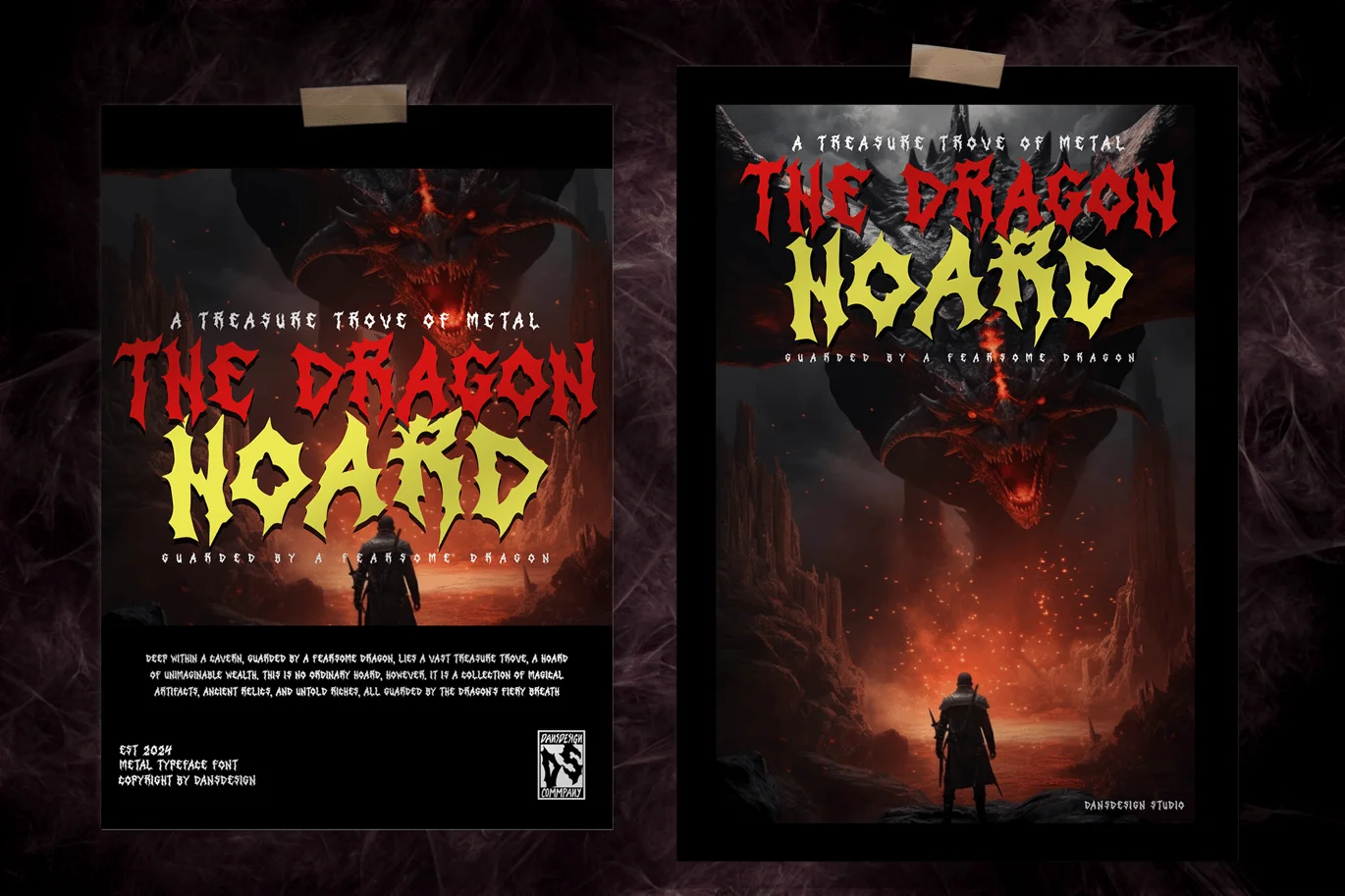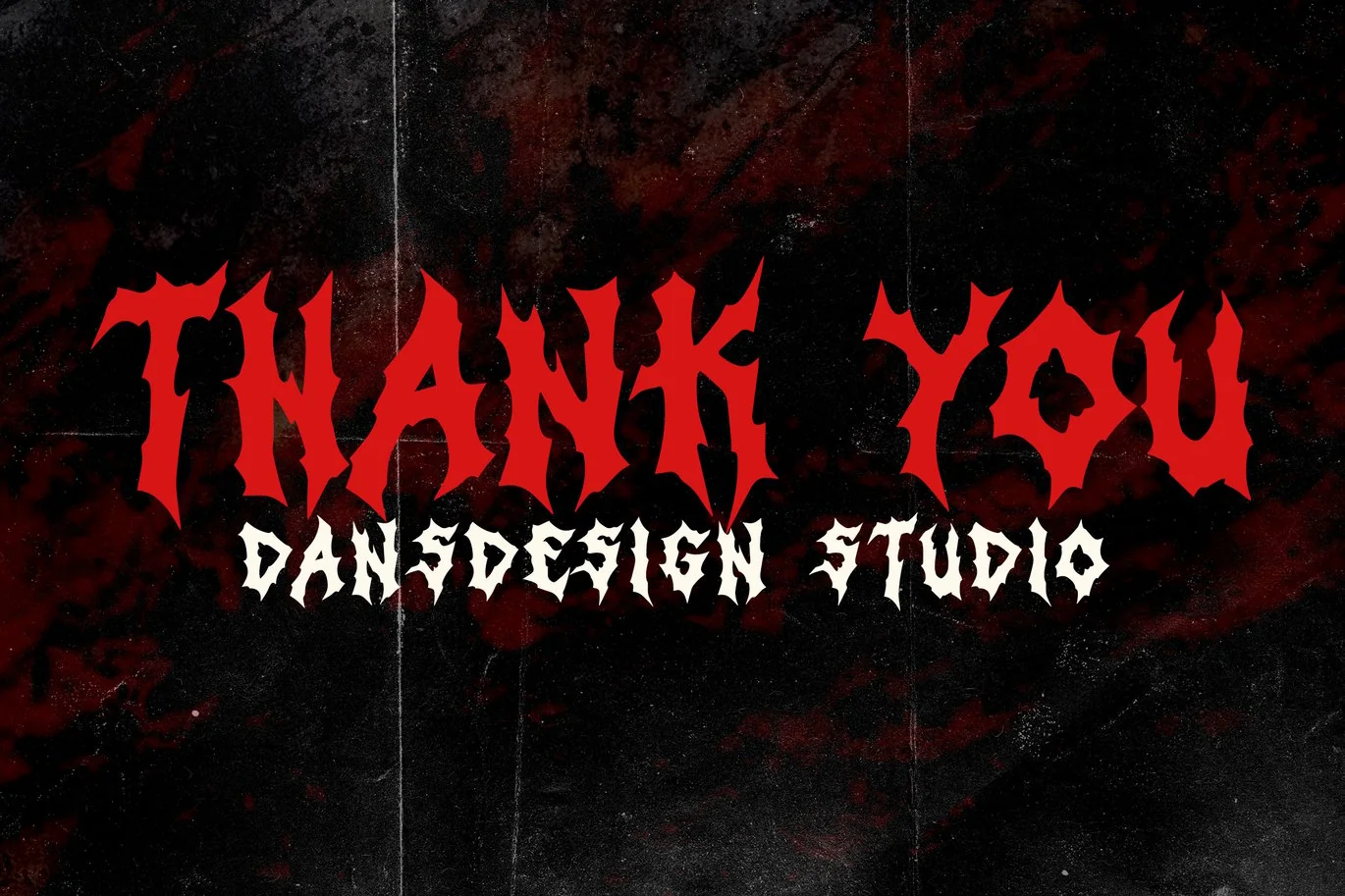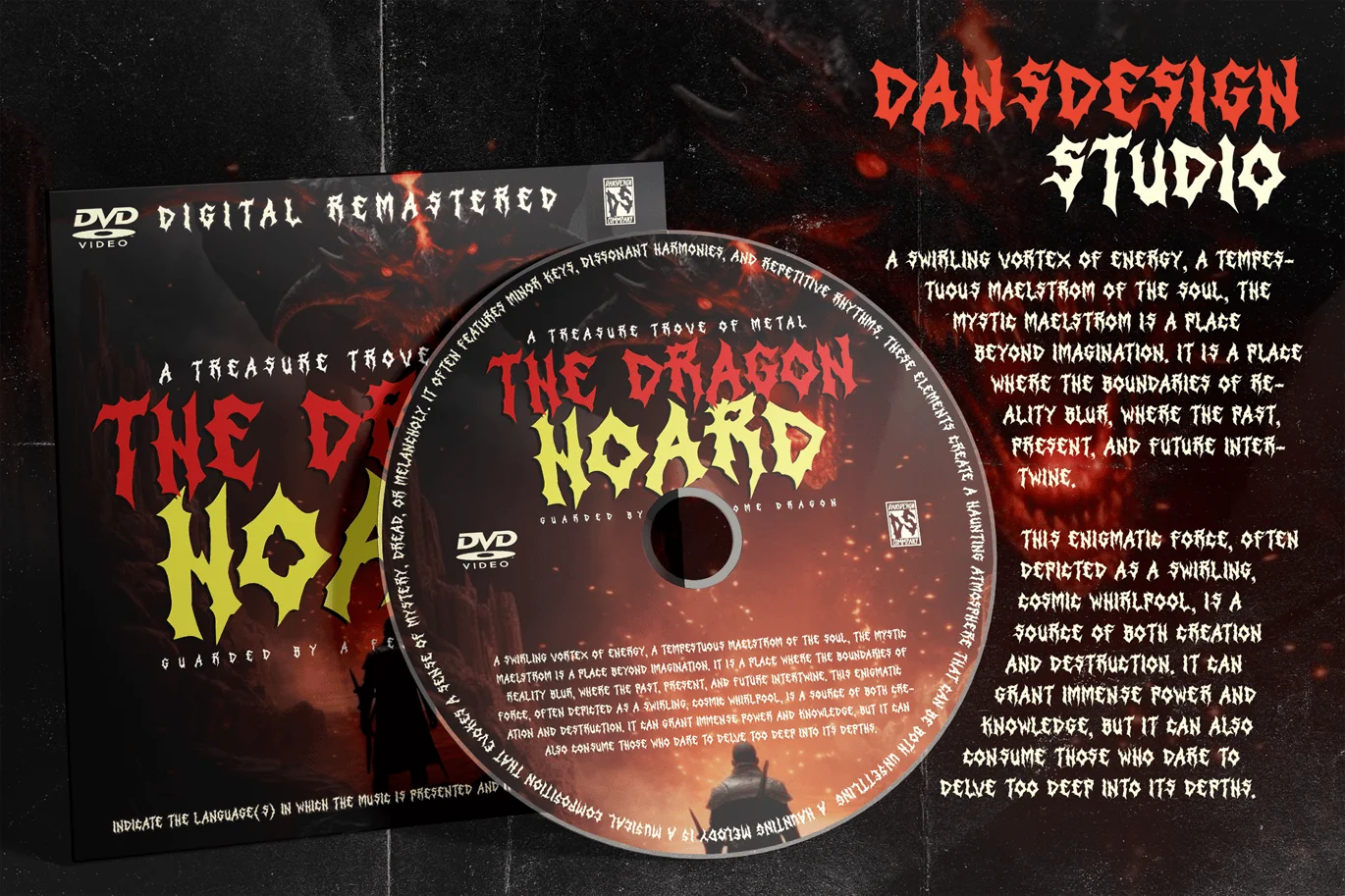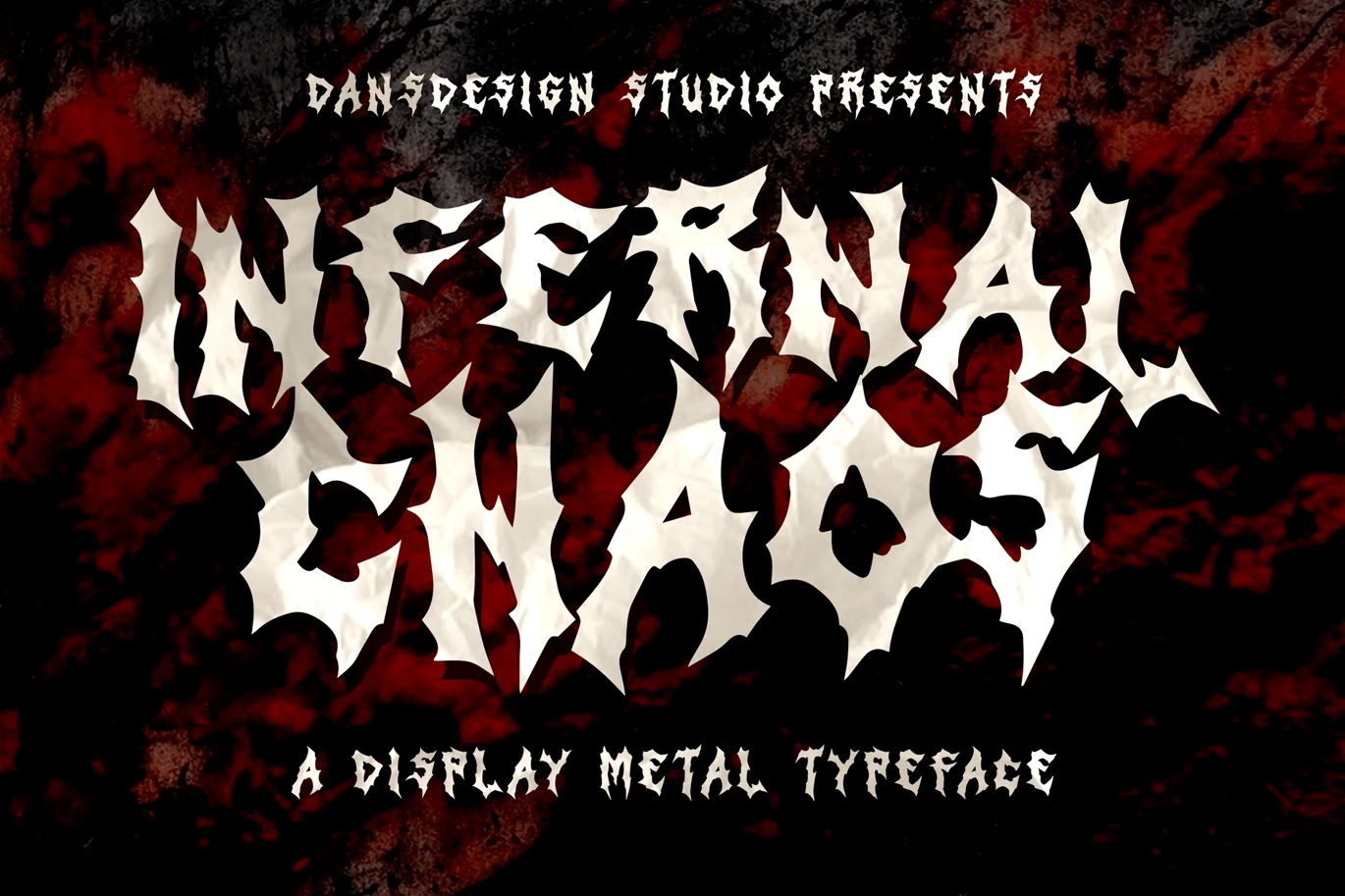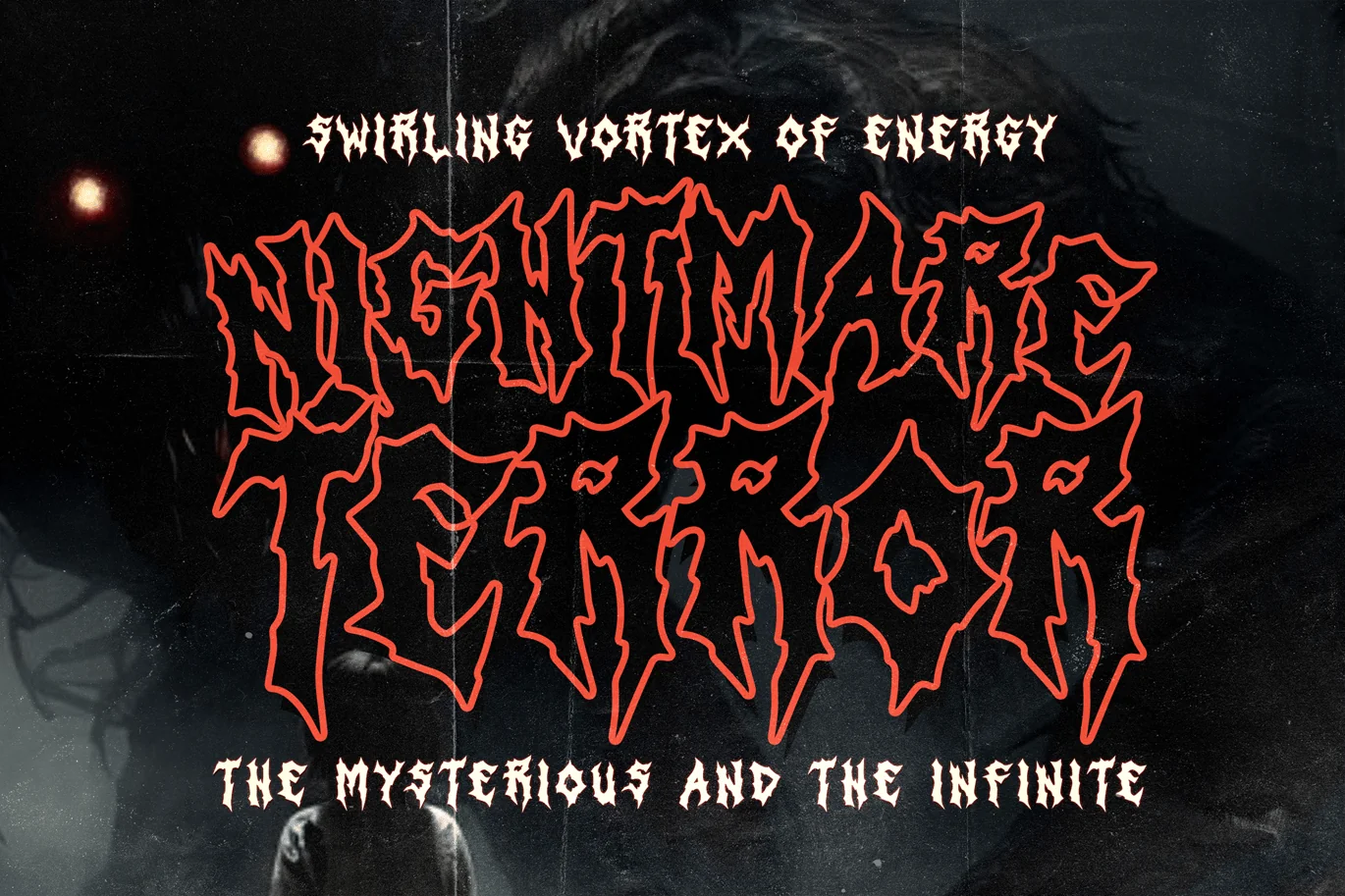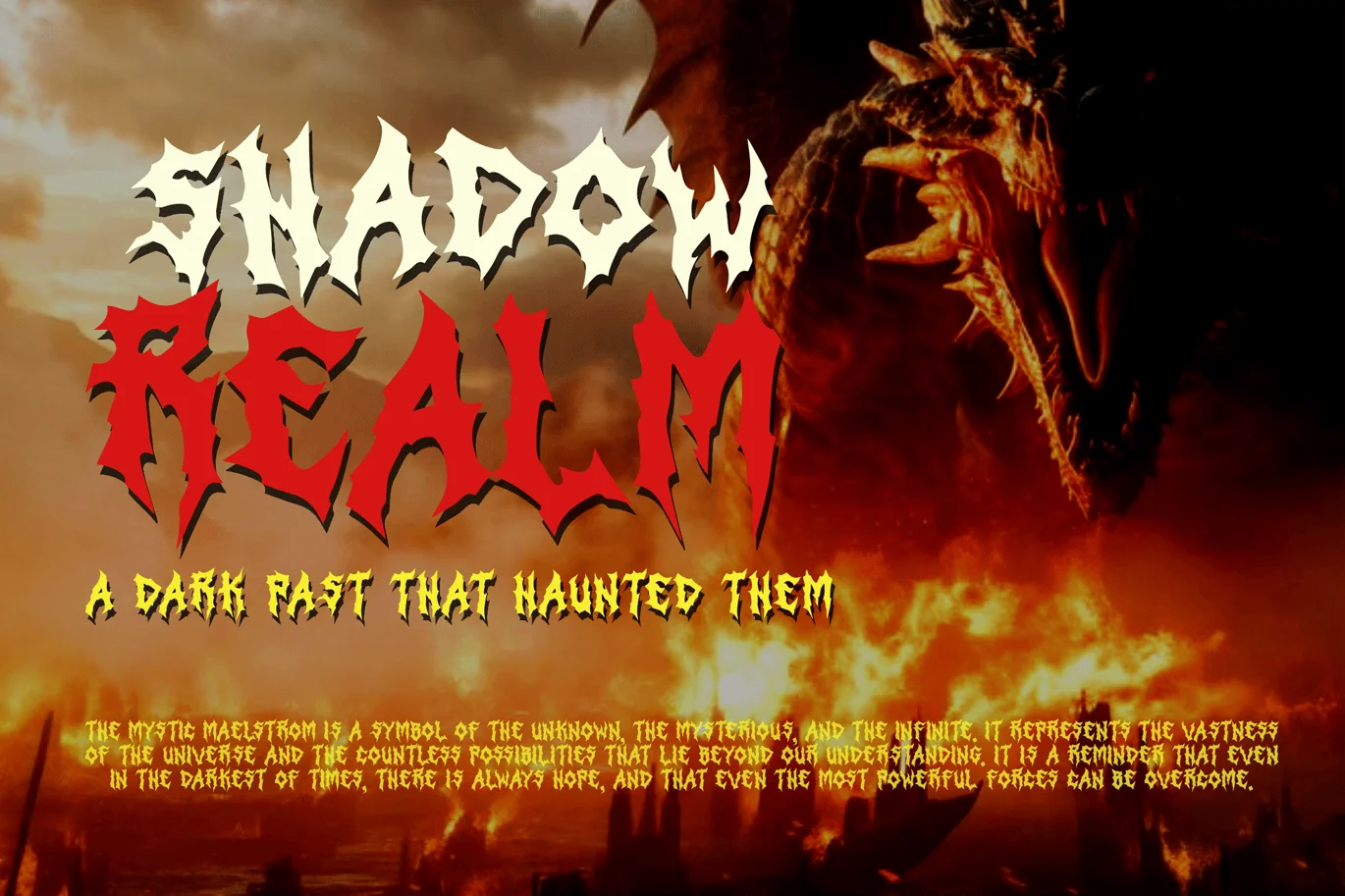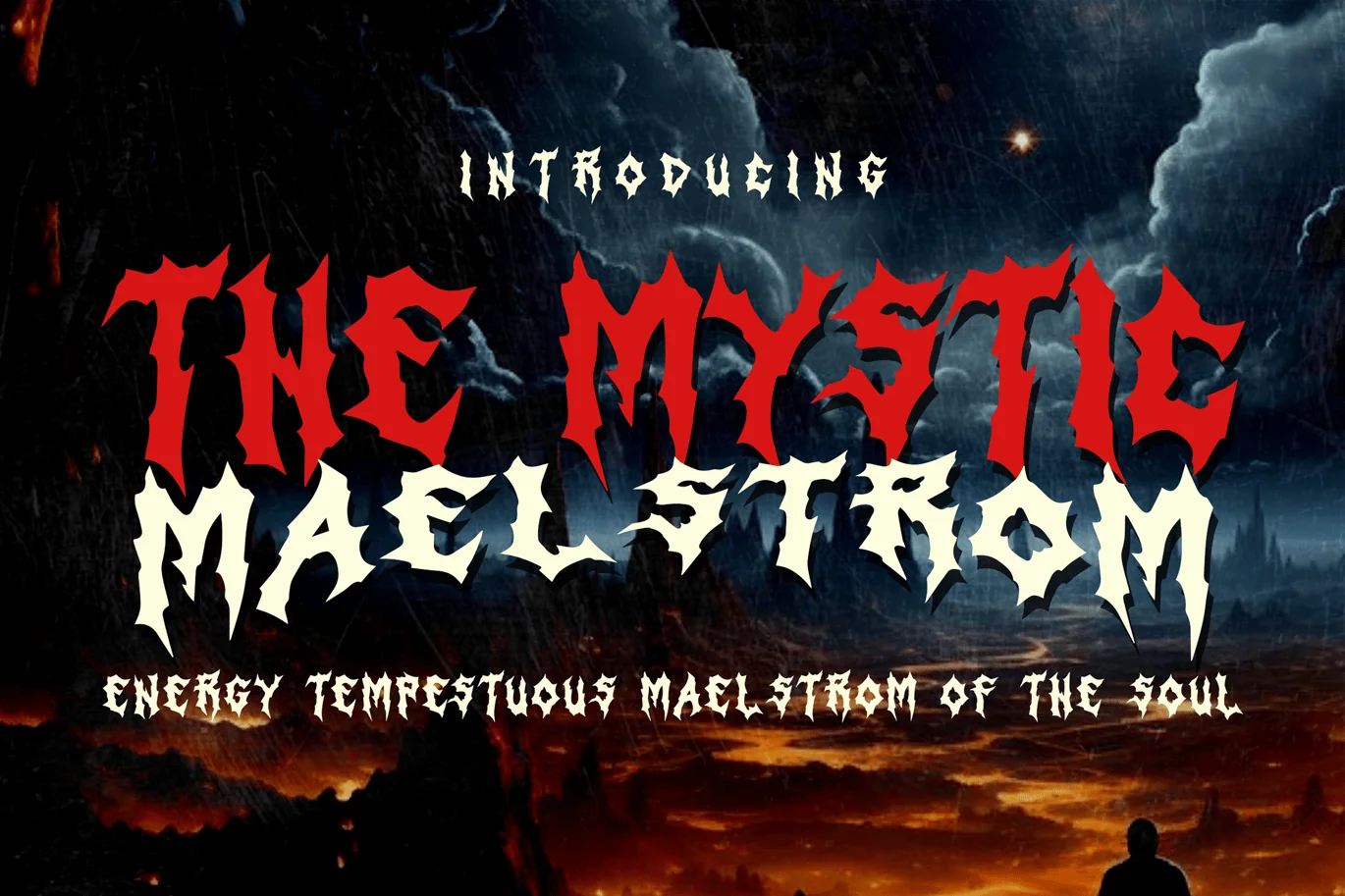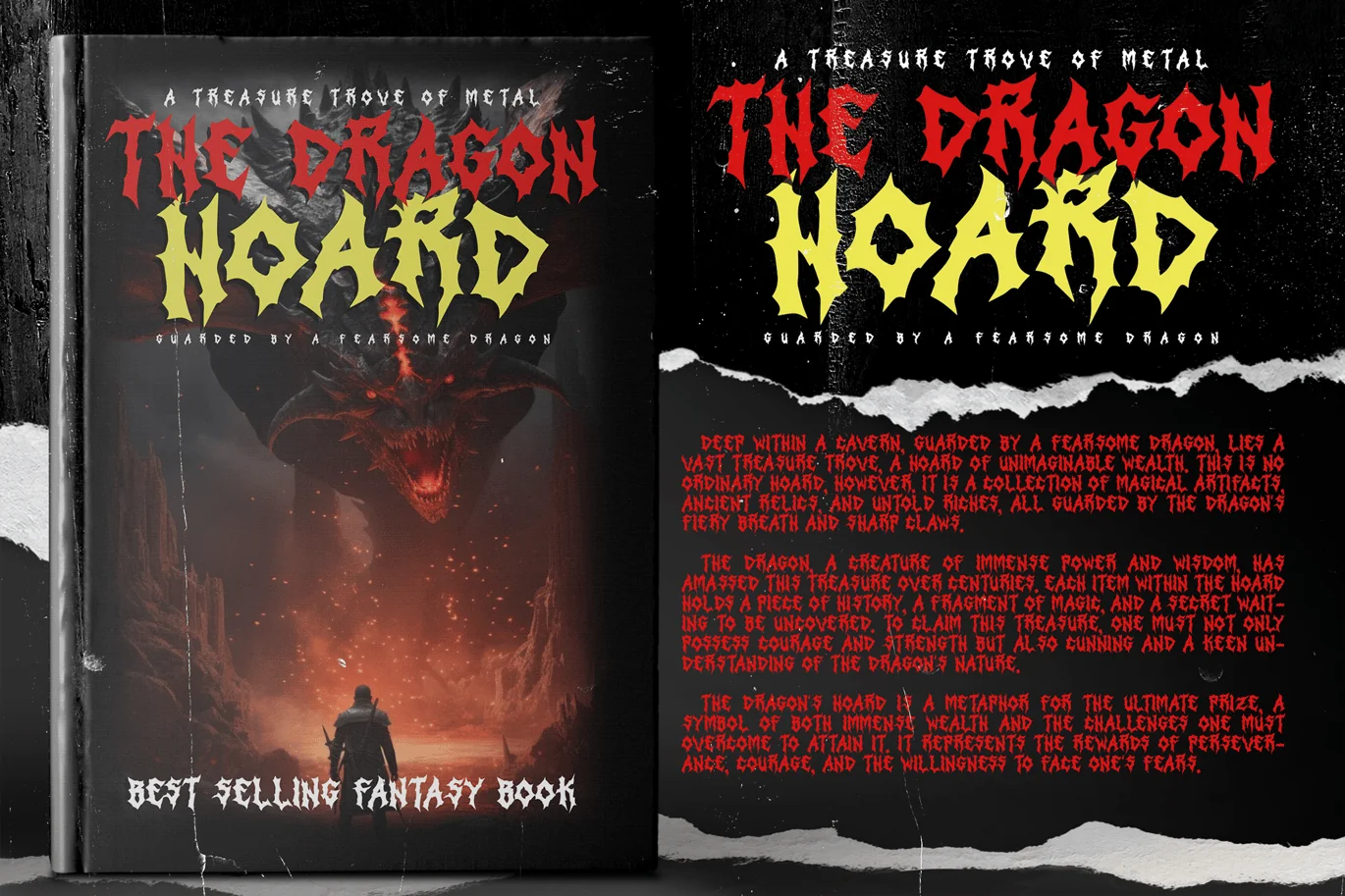
Inferal Chaos Metal Blackletter Y2k Graffiti Font
Inferal Chaos Metal Blackletter Y2k Graffiti Font is a distinct, highly detailed. Marker Display Font.
It would make a great choice for exquisite retro-urban designs, business branding, logos, Apparel designs, and more.